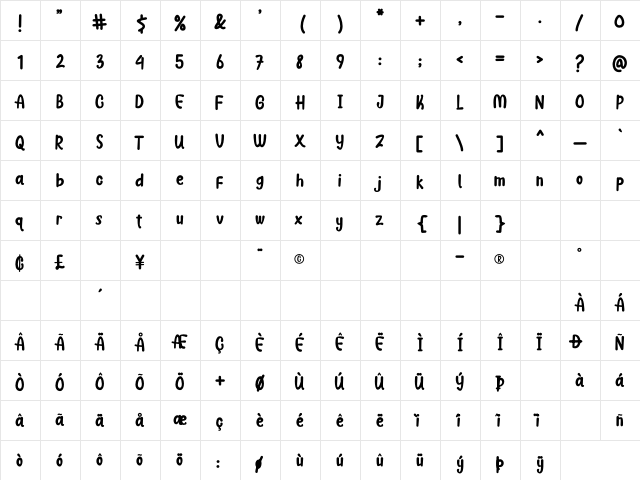
Monday Monkey Regular
| Designer | ABDUL GHOFUR |
Design Context for Monday Monkey Typeface
Monday Monkey is a composed and adaptable typeface that performs quietly and consistently across a wide range of design contexts.